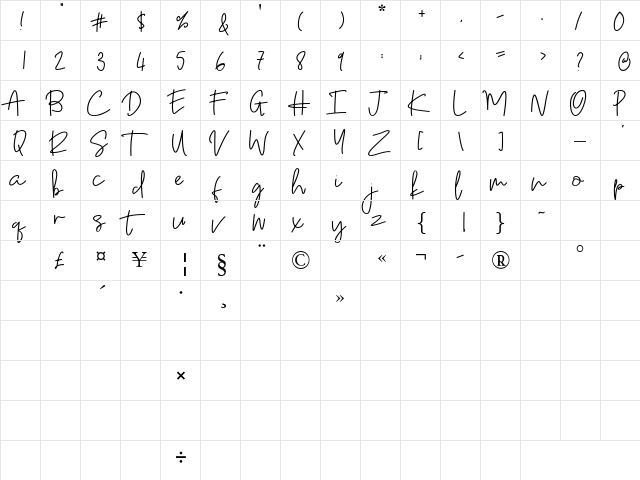
Anggeliana Regular Font Preview
Anggeliana Regular
Design Context for Anggeliana Typeface
Anggeliana is a composed and adaptable typeface that performs quietly and consistently across a wide range of design contexts.